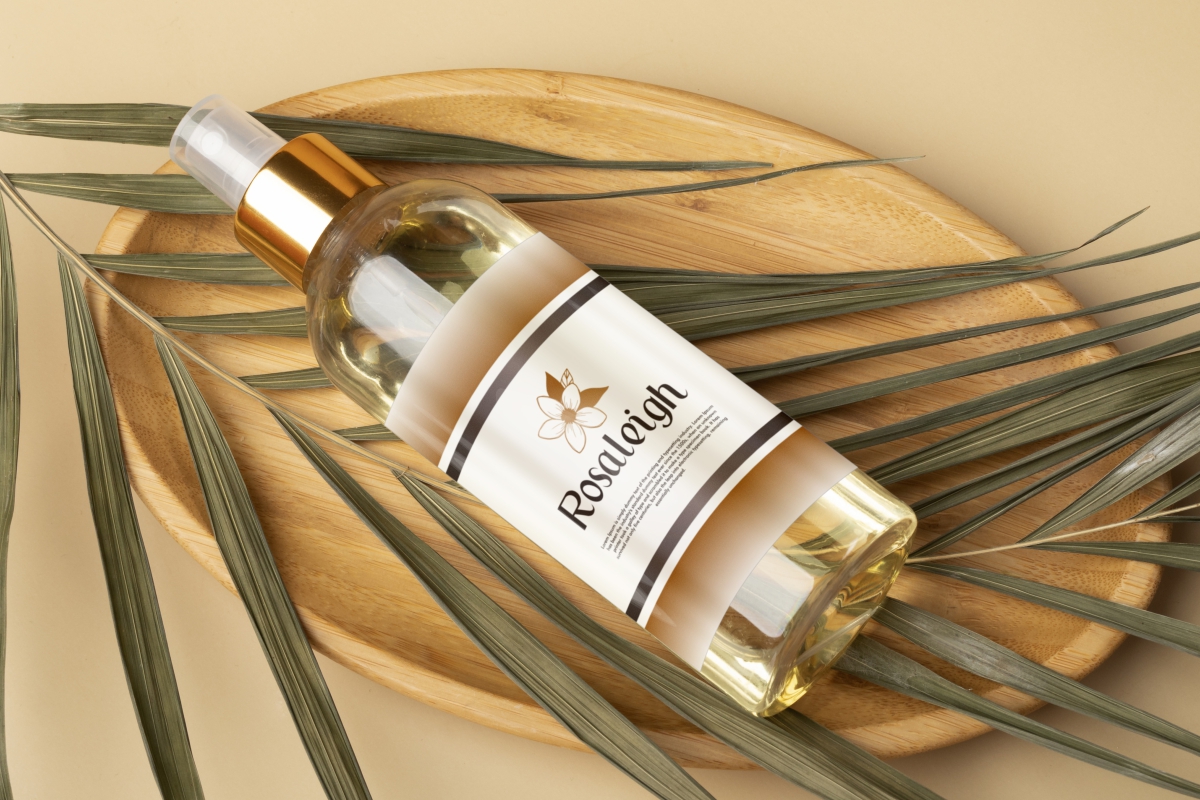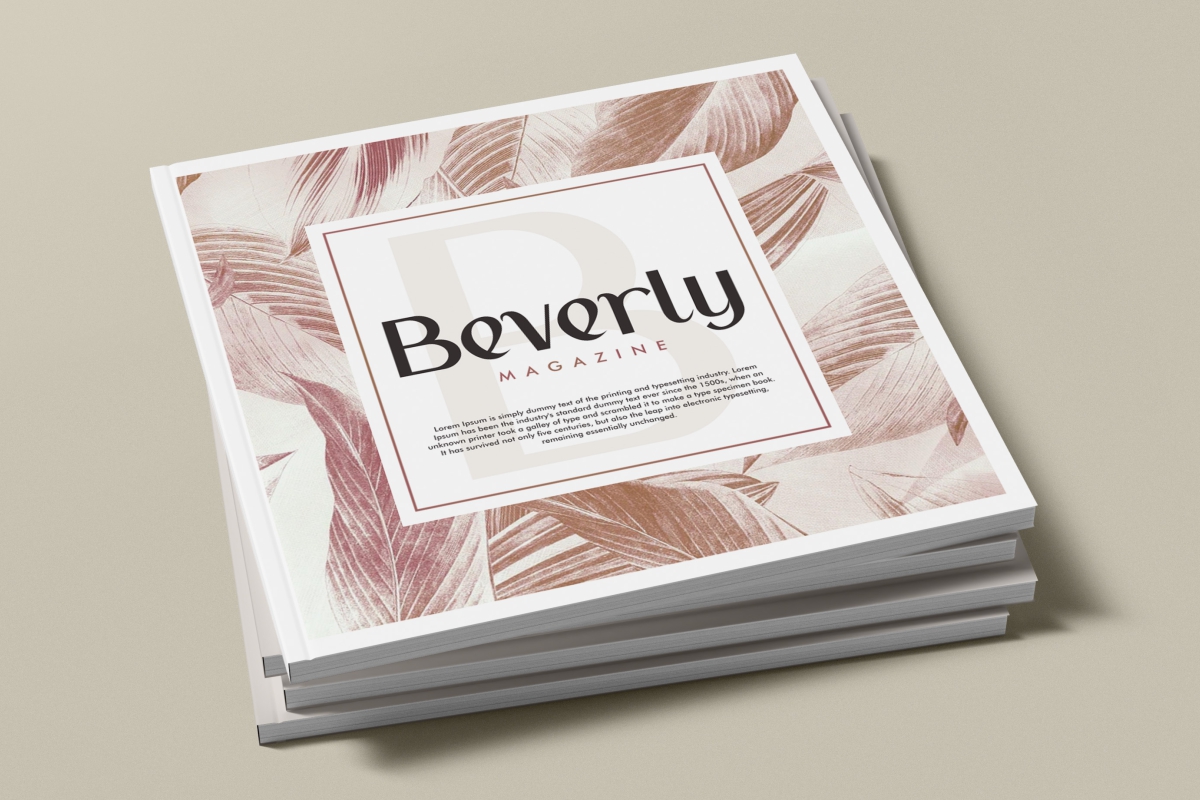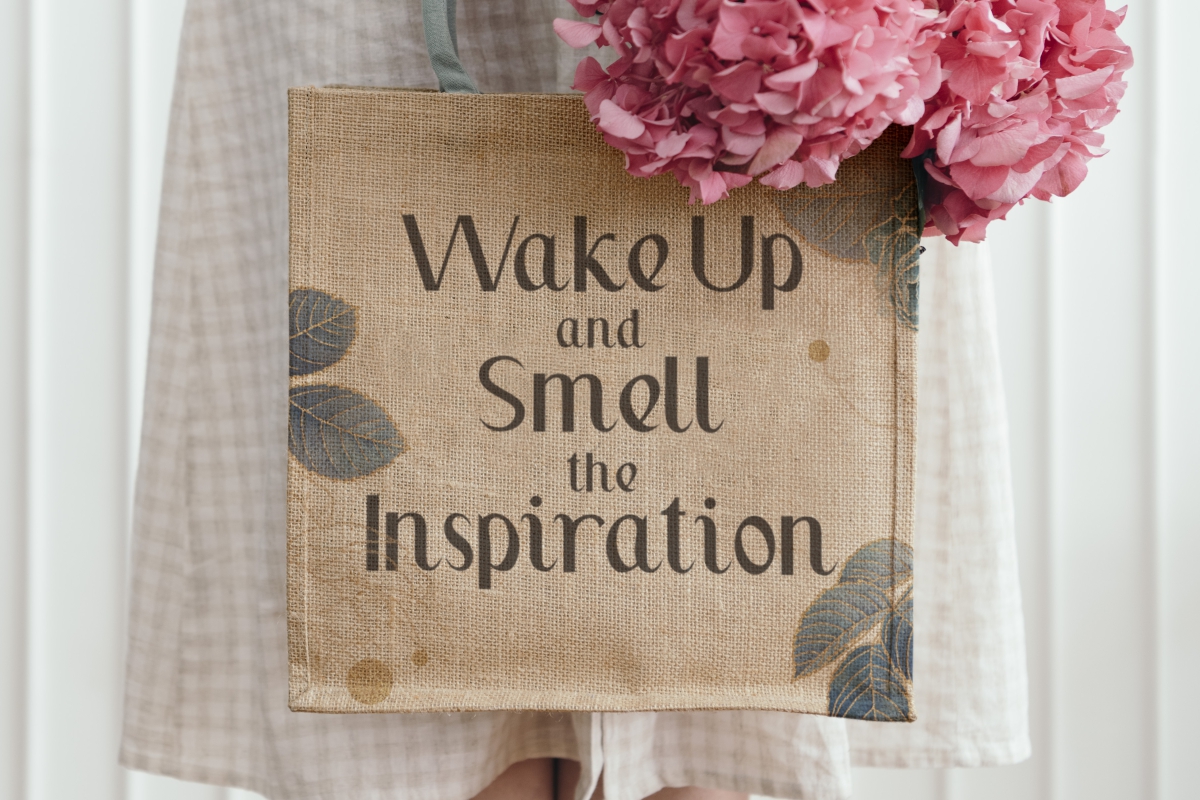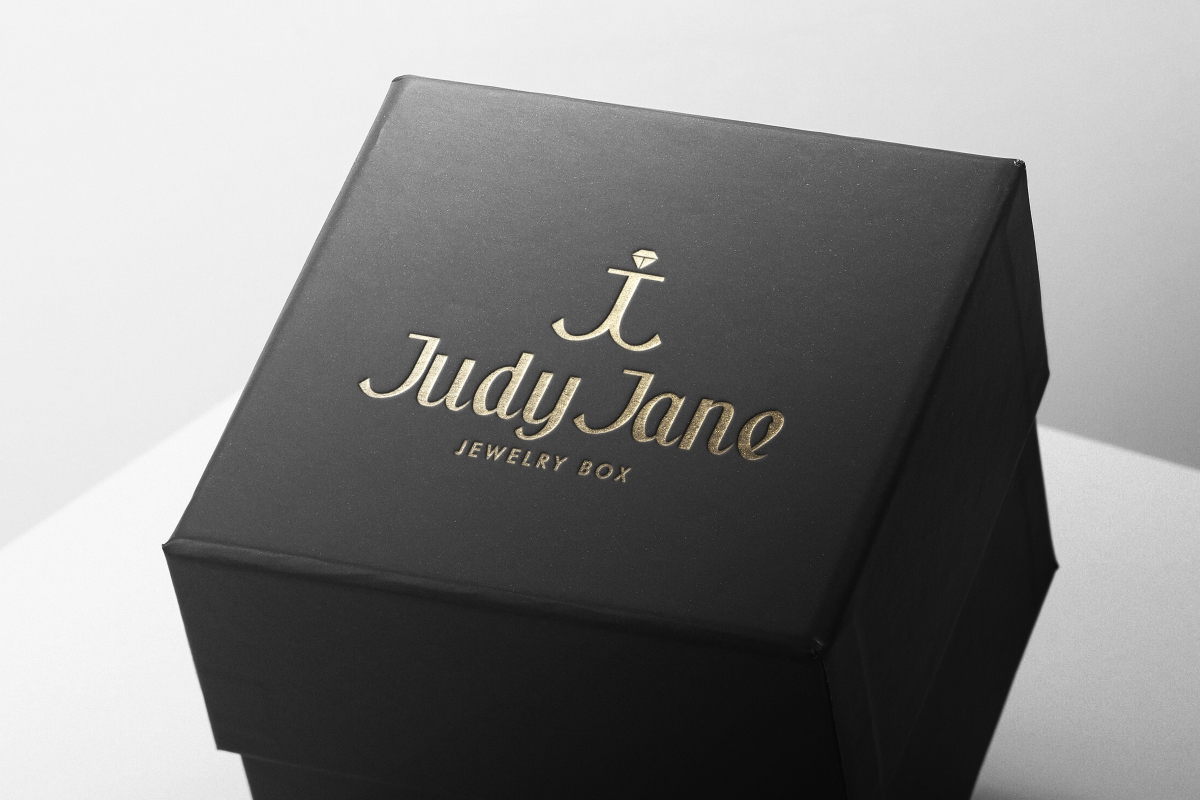
Classic Write Sans Serif Font
It’s a classy stylish display with sans serif style, created by NihStudio. This font has sophisticated on uppercase and has a pointed edge on lowercase and make it stand out. It’s perfect for many industries such as architect, boutique, cosmetic, craft, fashion, homeware, jewelry, perfume, publishing, real estate, and more!